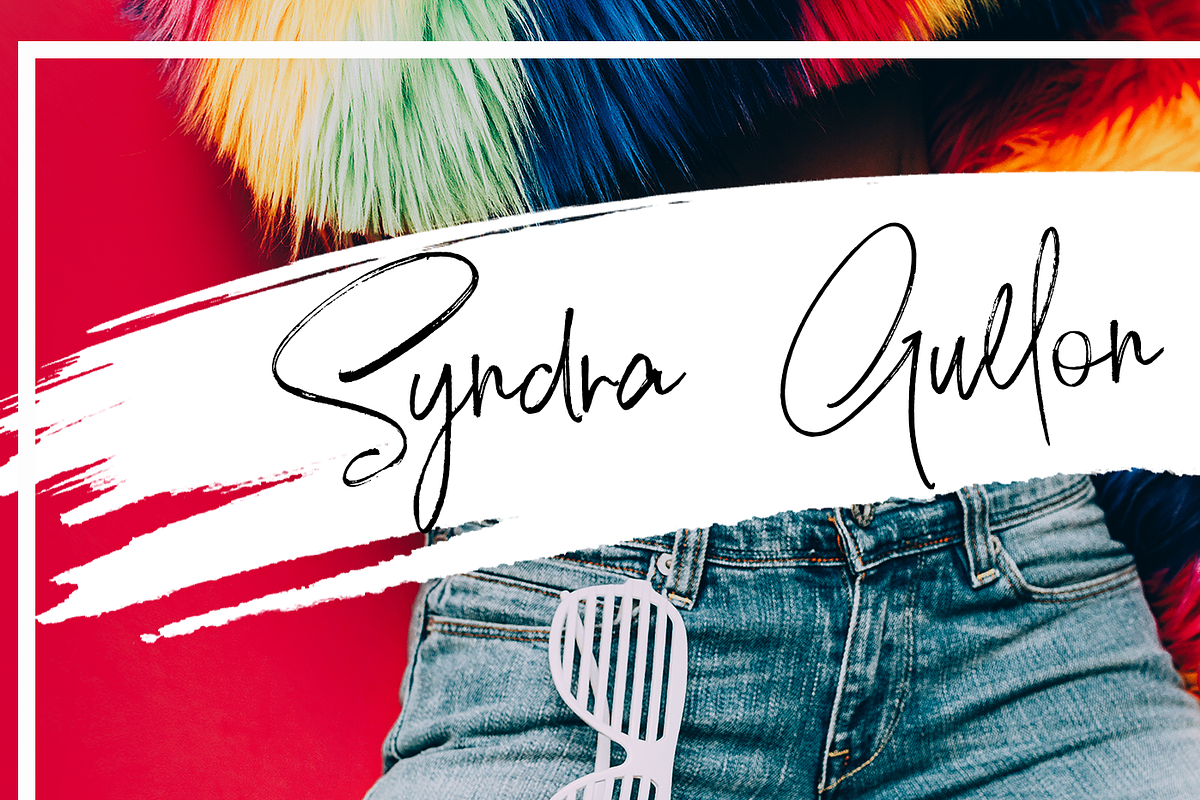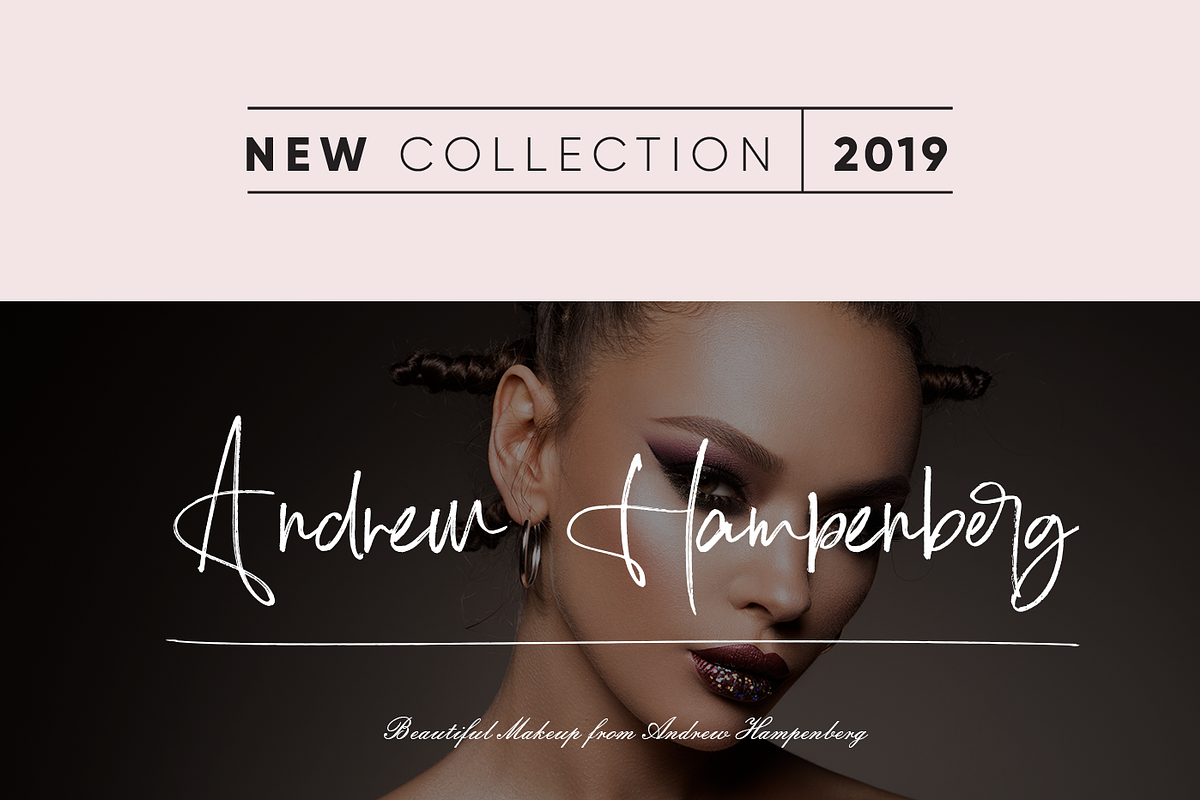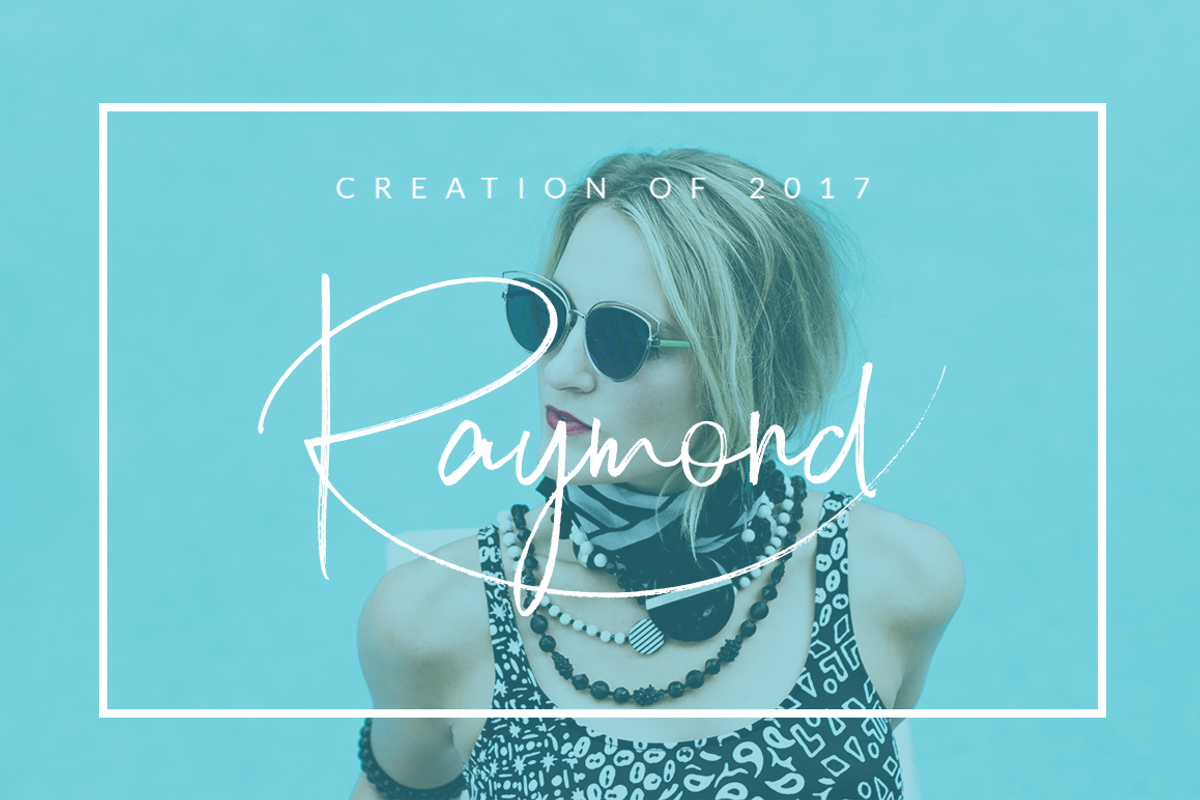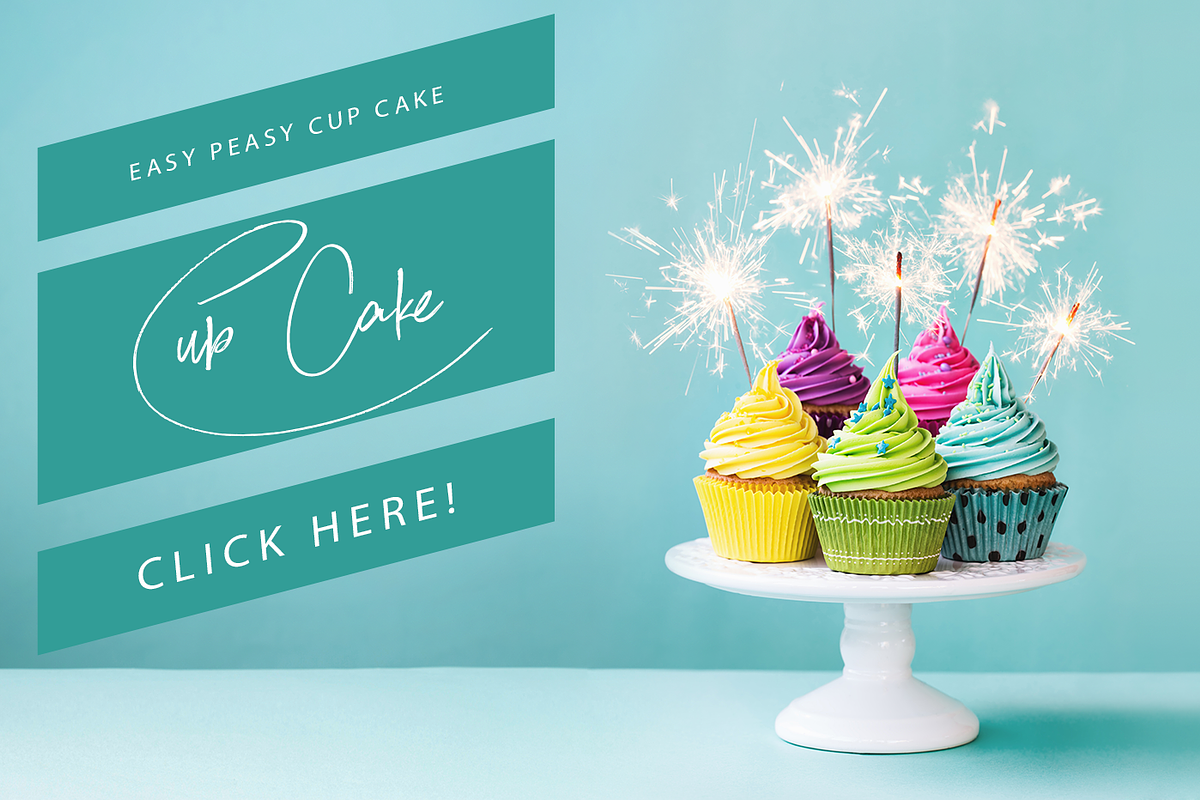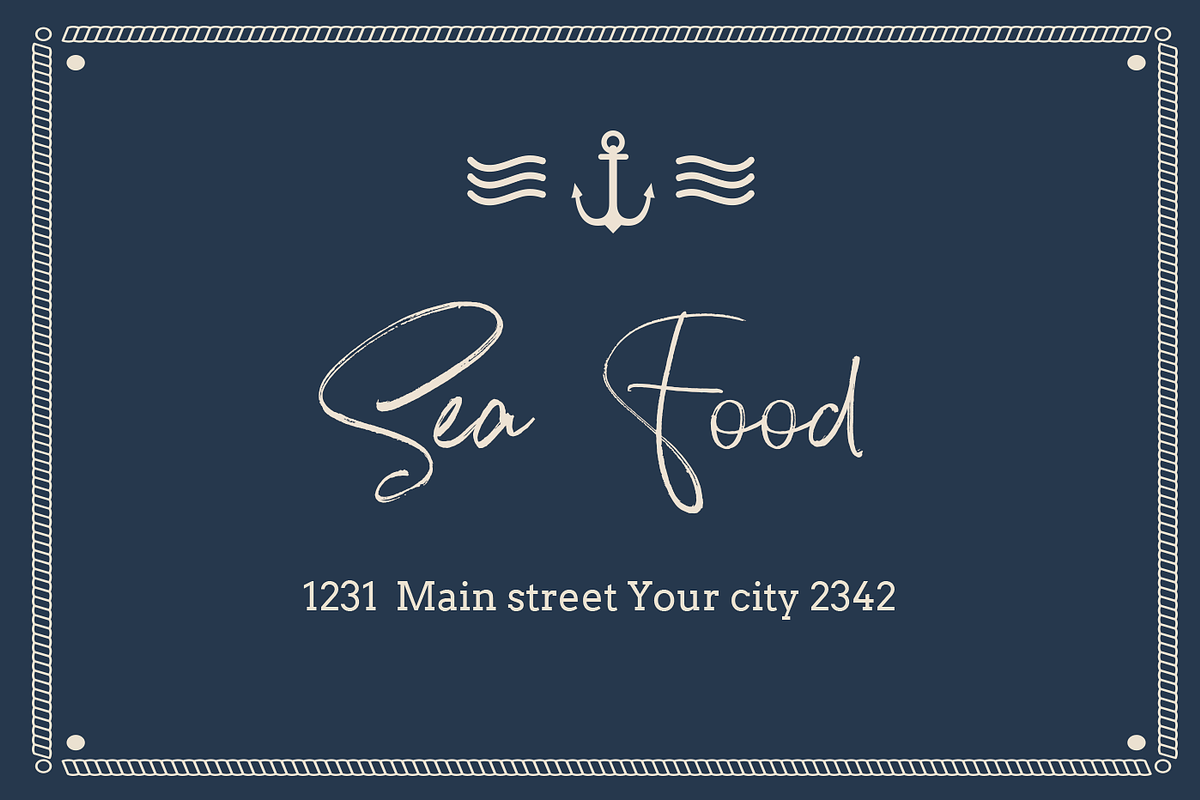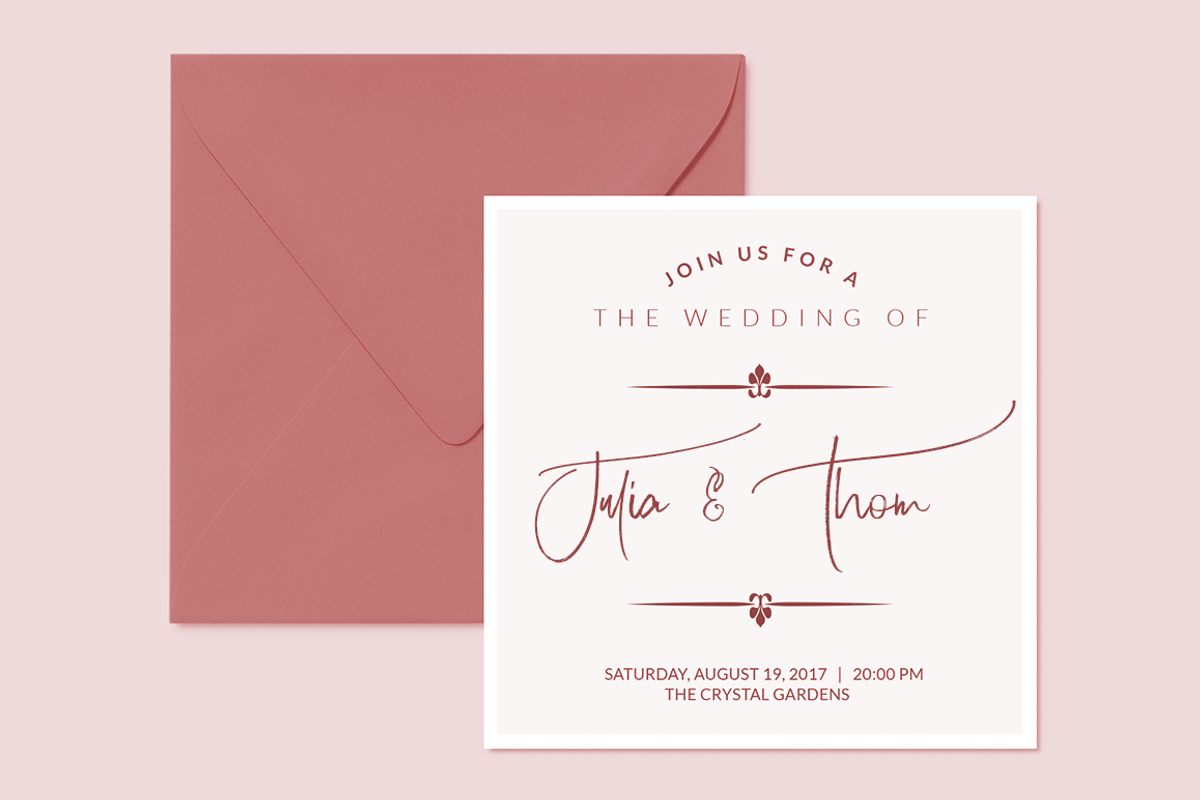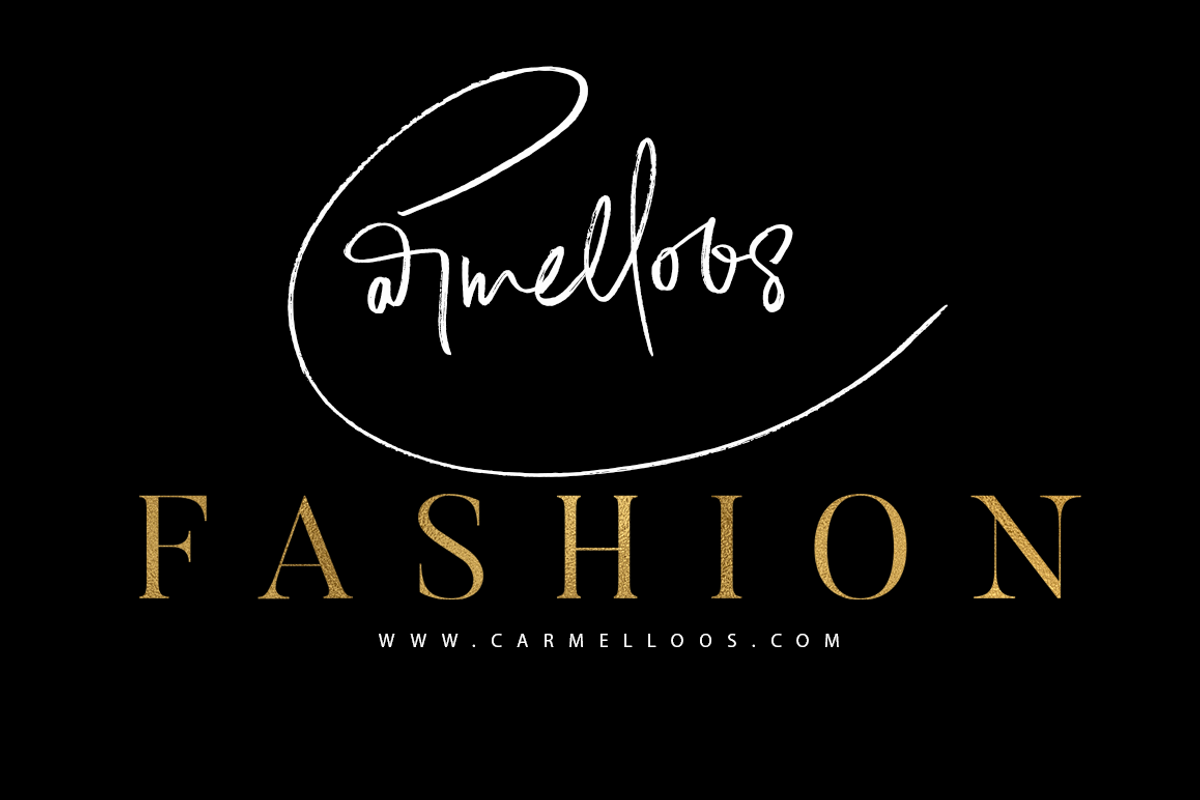
Asyast Krizalid Brush Script Font
Asyast Krizalid Brush Script Font:
Asyast Krizalid Brush Script Font has almost an unique design that posseses elegancy and charm. Fluidity of ink and hardness of brush created the unique characteristics of the font. You can see the harmony of the curls among the letters. With Asyast Krizalid Brush Script Font , you can make your projects, brands, presentation of your collections, magazines, logos, packagings and websites be eye-catching with pleasure.
Asyast Krizalid Brush Script Font
Asyast Krizalid Brush Script Font Alternate 1
Asyast Krizalid Swashes
Why Asyast Krizalid Brush Script Font is worth a look